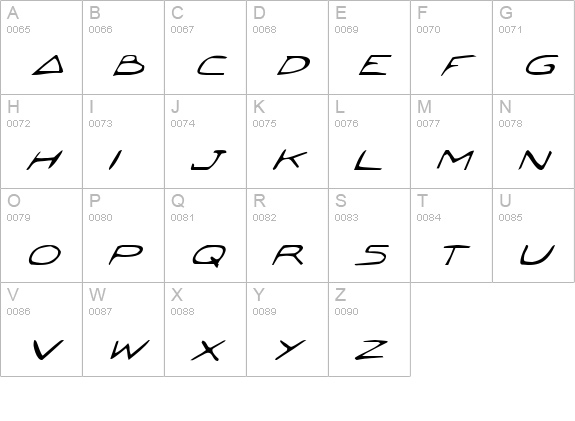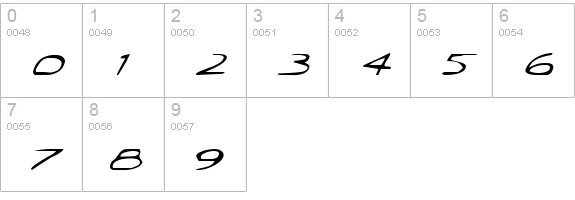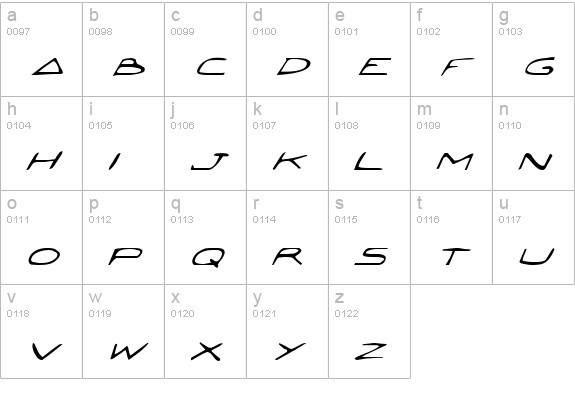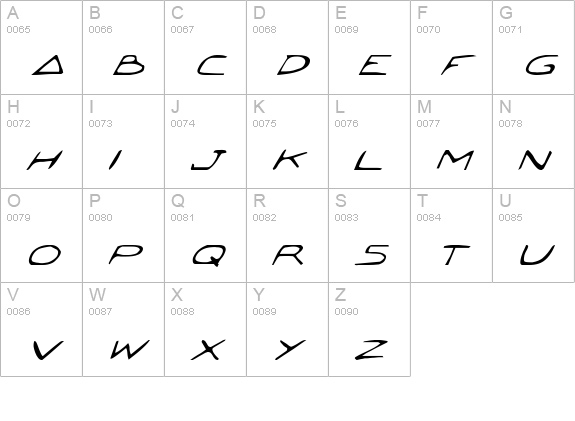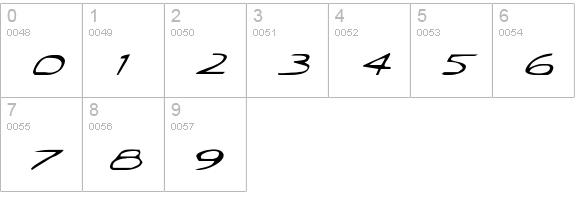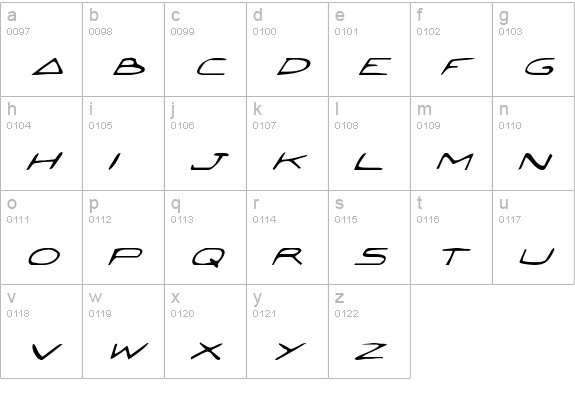
Jetta Italic is a distinctive, italic variant in the Jetta typeface family \xE2\x80\x94 well suited to design and typography projects.
Jetta Italic font is a sleek and modern typeface that exudes elegance and sophistication. Its slanted and stylish design adds a touch of flair to any project, making it perfect for titles, headers, and invitations. The flowing curves and unique letterforms of Jetta Italic make it stand out from the crowd, giving your text a distinctive and polished appearance. Best of all, Jetta Italic font is available for free download at FontsMarket.com. This means you can easily access this stunning typeface without any cost, making it a valuable addition to your font collection. Whether you're working on a personal project or a professional design, Jetta Italic is sure to elevate your work and leave a lasting impression on your audience. Download Jetta Italic today and take your typography to the next level!